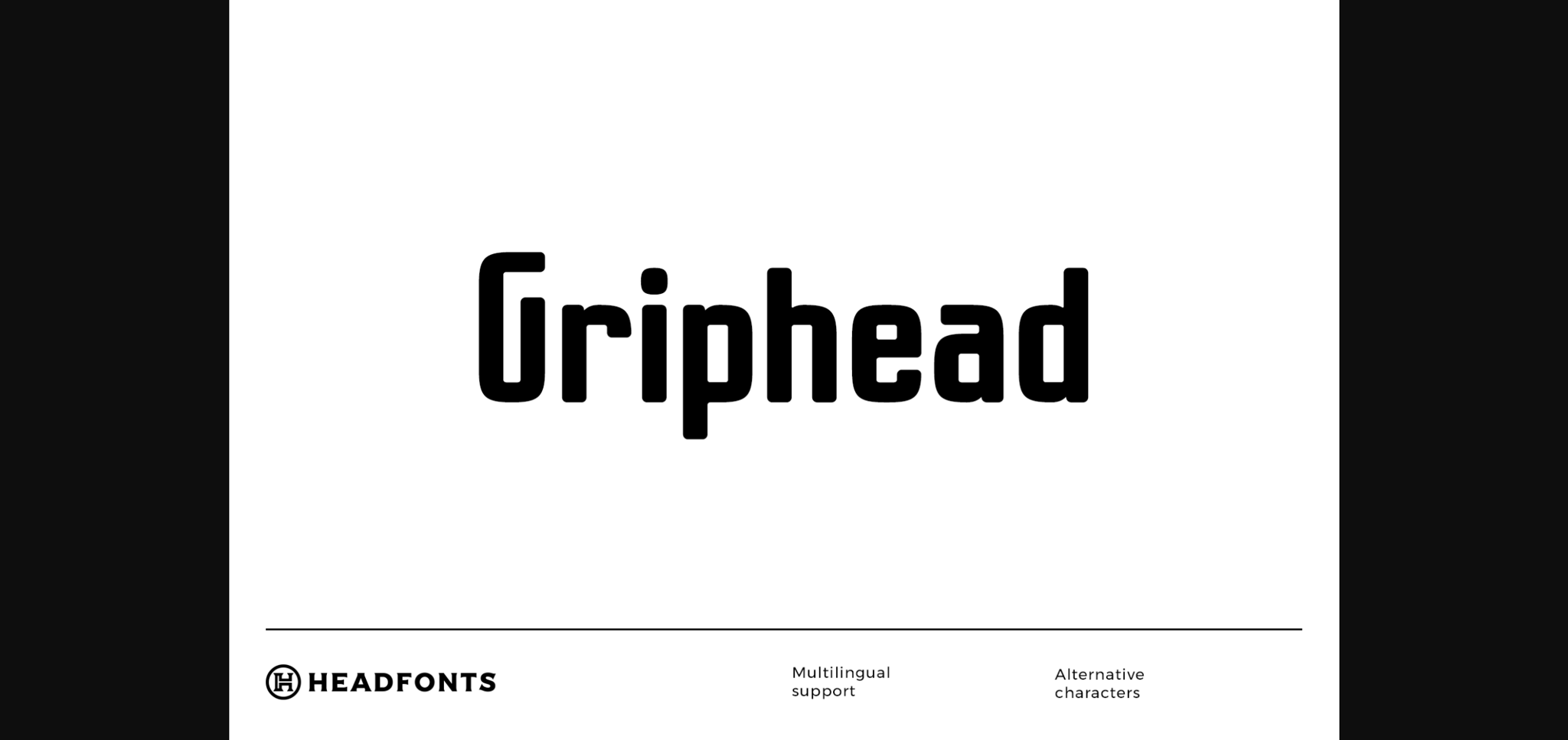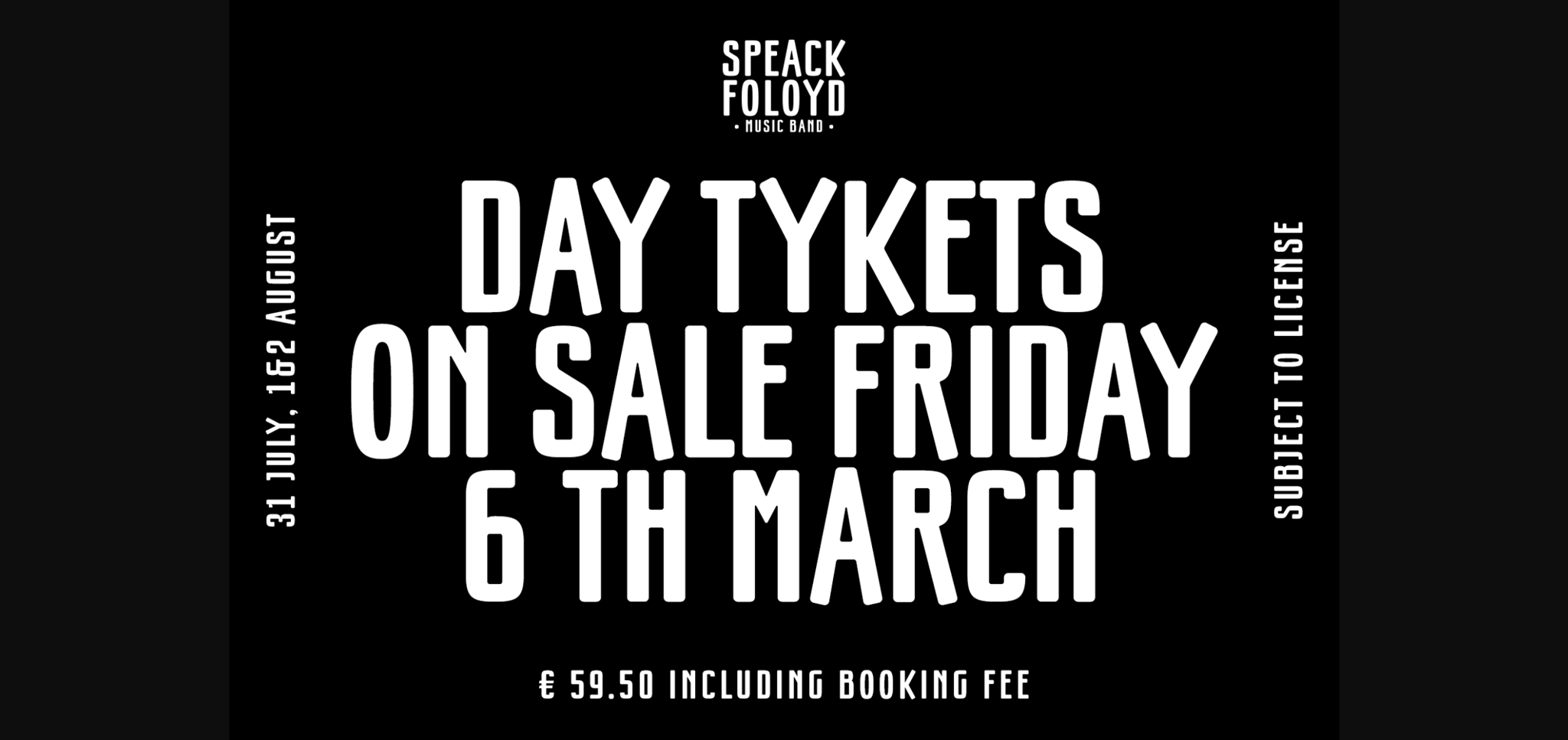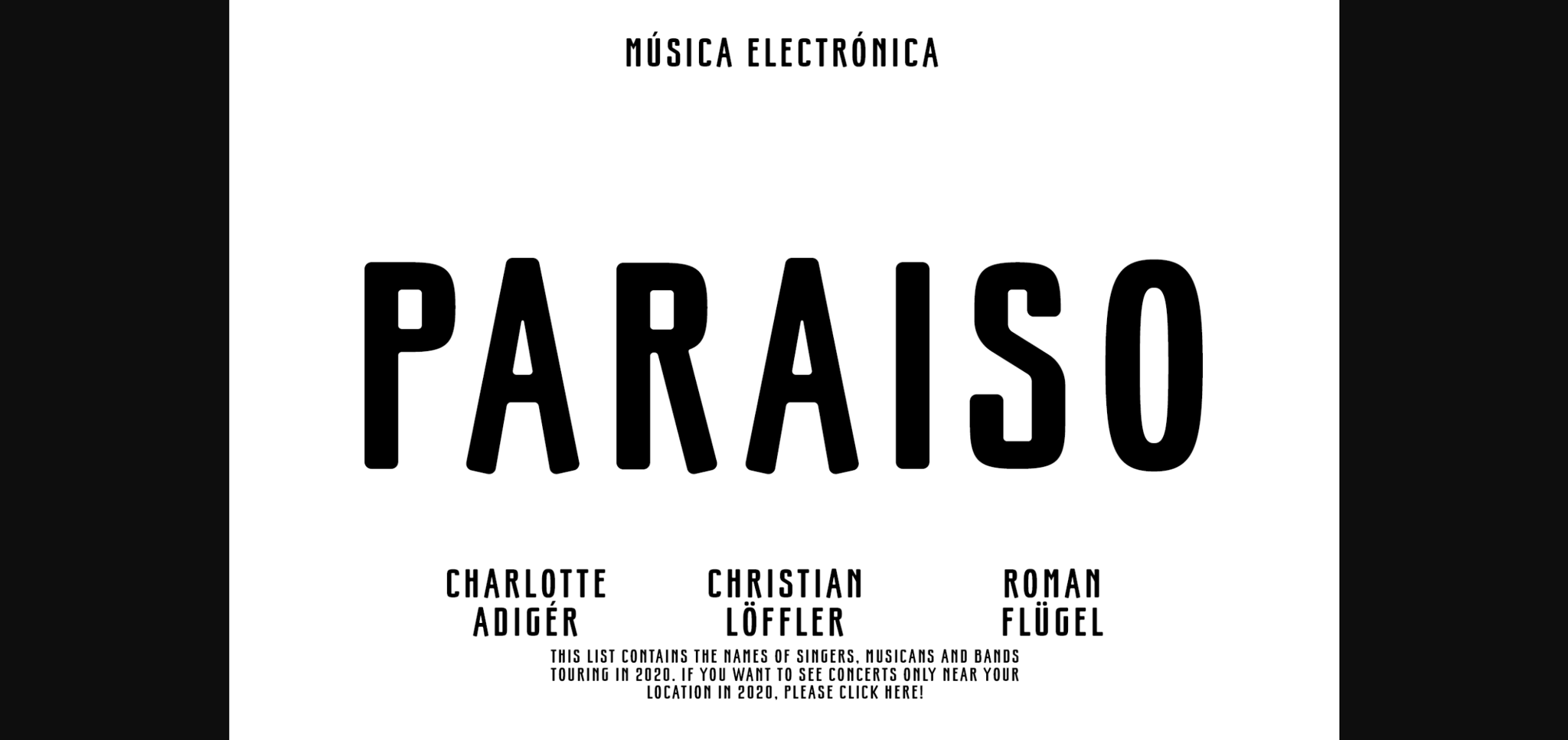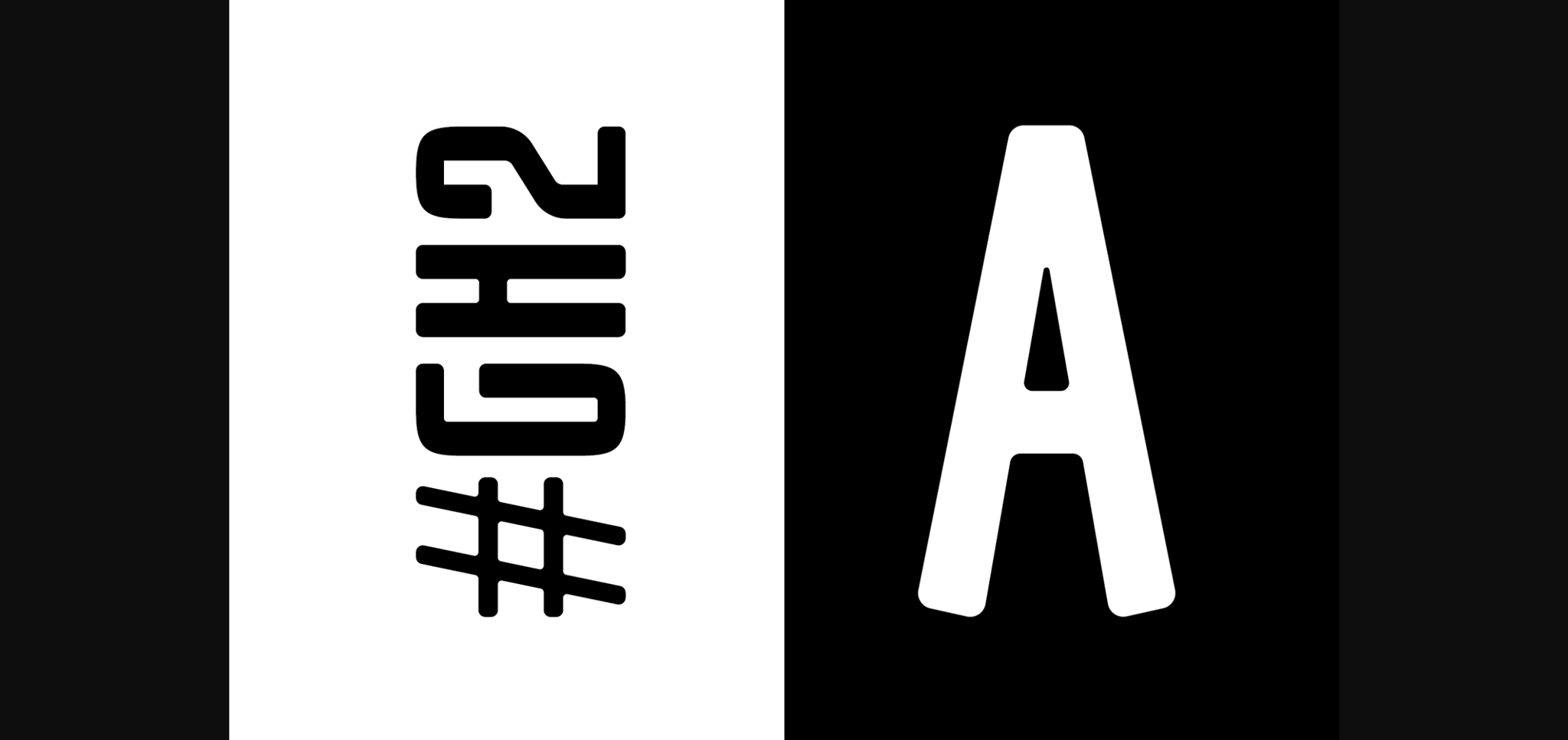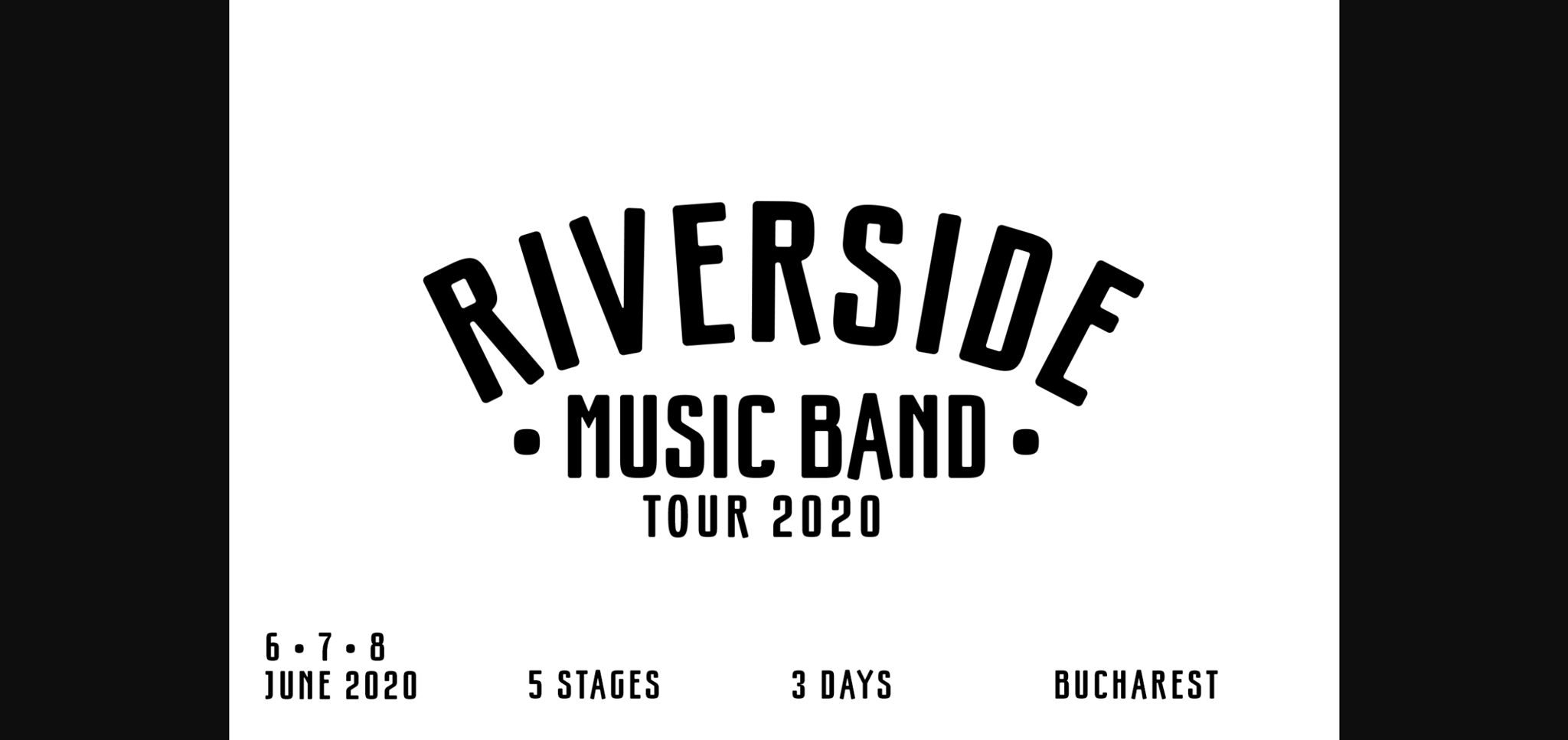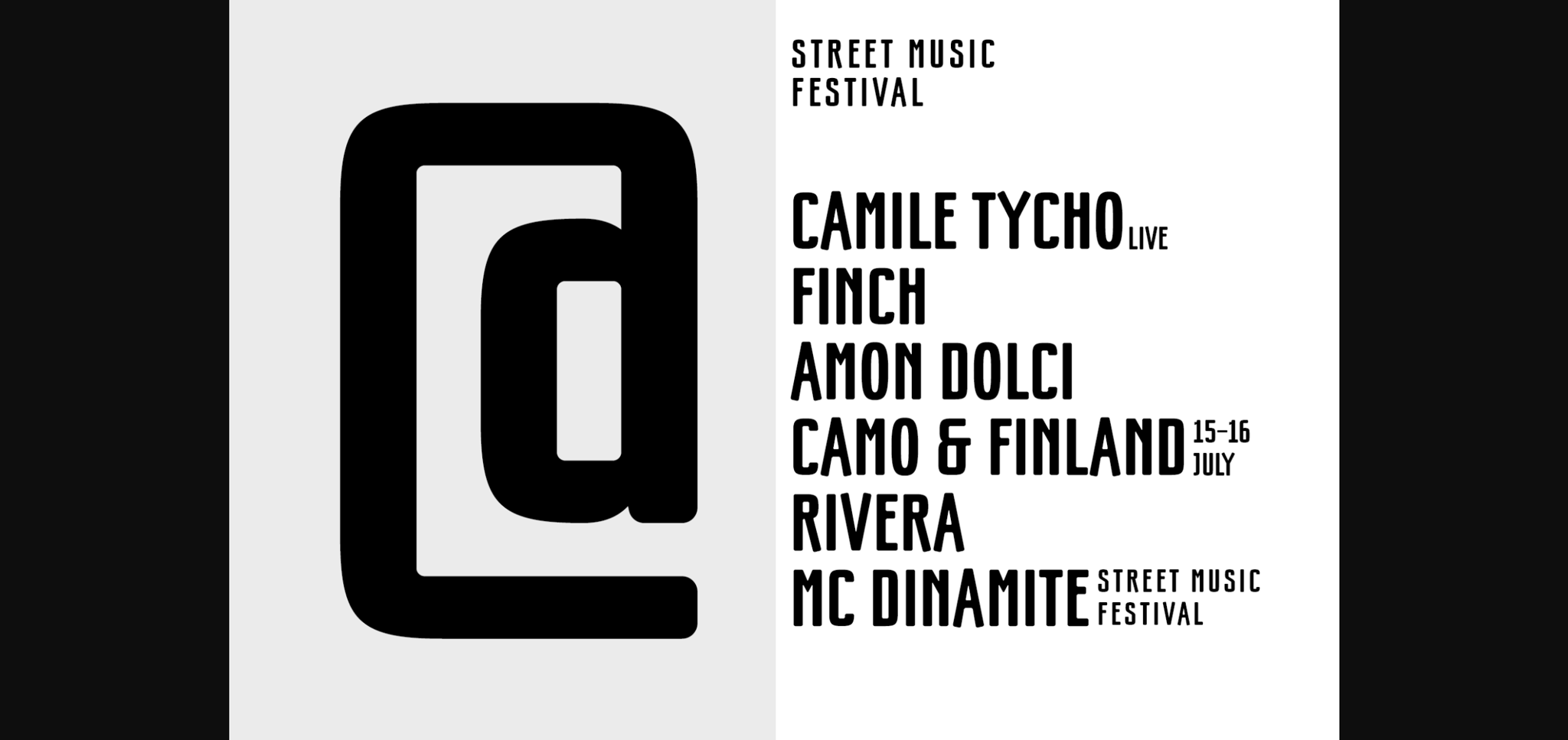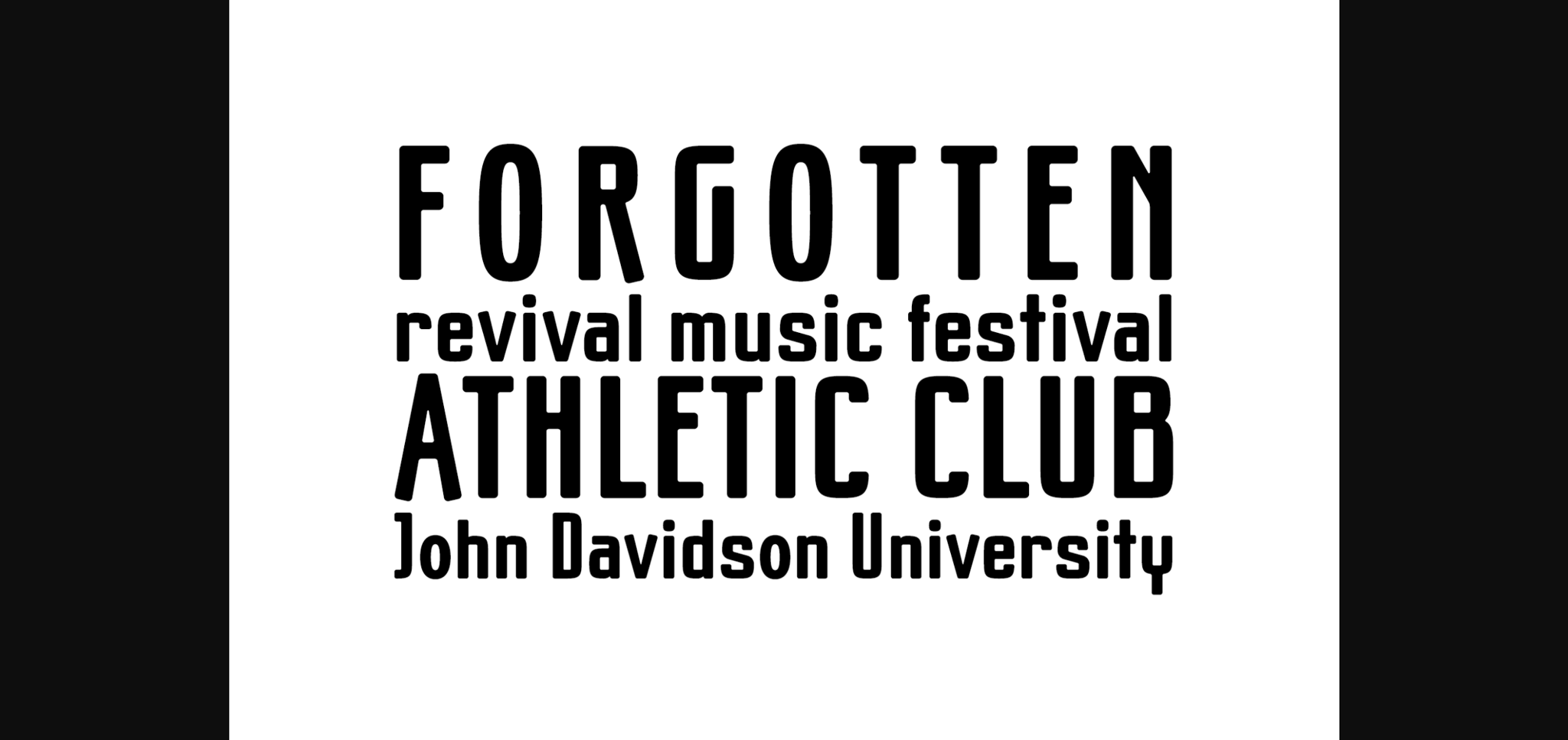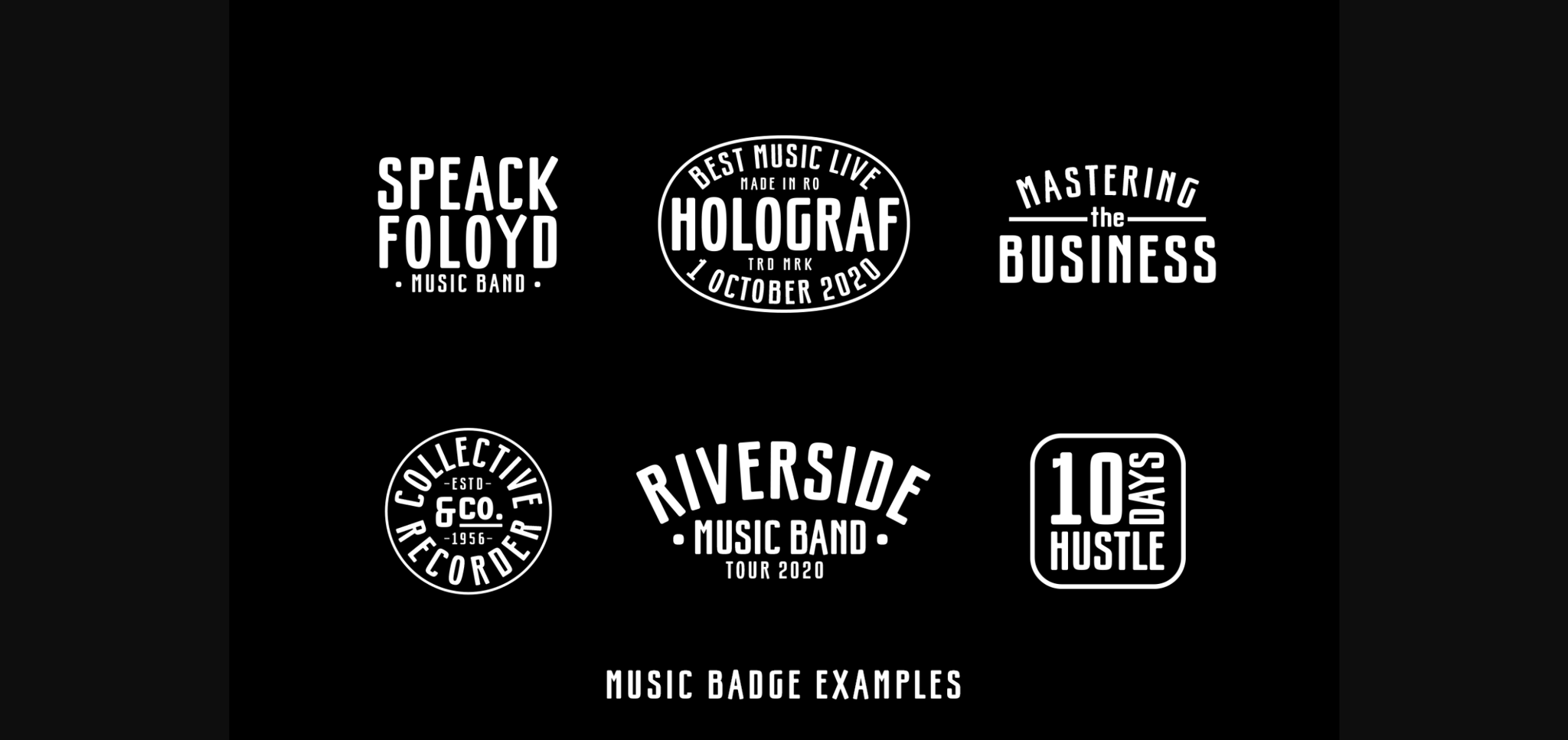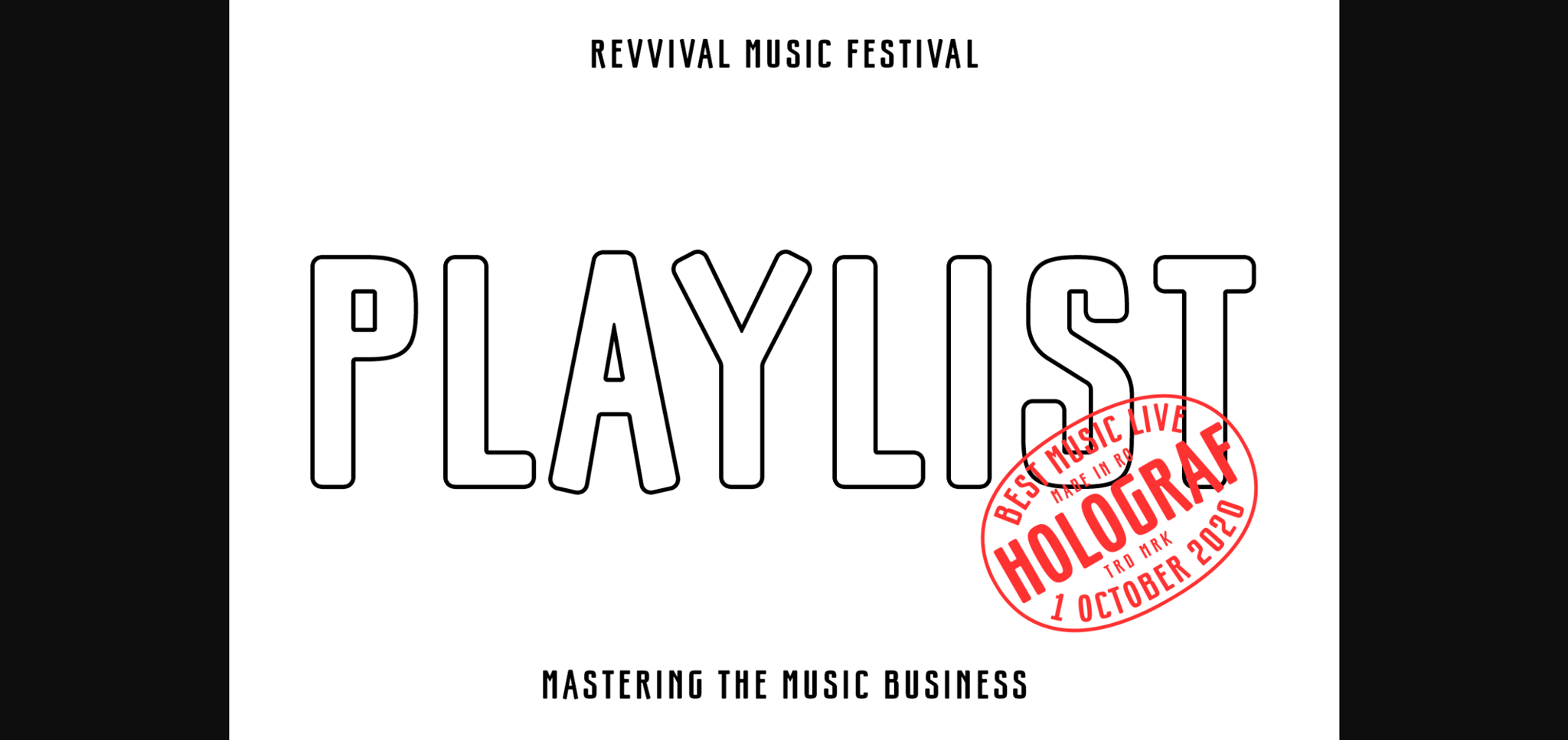
HomeSans Serif FontsGriphead Font Sans Serif Fonts Griphead Font FacebookXPinterestWhatsApp 1 of 11 ... Griphead Font Poster 2... Griphead Font Poster 3... Griphead Font Poster 4... Griphead Font Poster 5... Griphead Font Poster 6... Griphead Font Poster 7... Griphead Font Poster 8... Griphead Font Poster 9... Griphead Font Poster 10... Griphead Font Poster 11... About Griphead Font Griphead is a casual sans serif font. This font is the ideal font for adding an adventurous and authentic feel to your next design idea! DOWNLOAD NOW People also explored Hay Lelitta Font Little Smile Font Angelia Palladise Font Hey Magdison Font Peanut Font Delttras Font Dorrotthy Script Font Angsert Font 266 0 TagsGriphead Font Previous articleYemeyi FontNext articleTechead Font LEAVE A REPLY Cancel reply Comment: Please enter your comment! Name:* Please enter your name here Email:* You have entered an incorrect email address! Please enter your email address here Website: Save my name, email, and website in this browser for the next time I comment. Personal Use Free Maxwell Personal Use Free Read more about this font Sunflower Personal Use Free Read more about this font True Love Personal Use Free Read more about this font Ammanda Personal Use Free Read more about this font BLOG Free vs Paid Fonts: Why Investing in Premium Fonts Is Worth It Free vs Paid Fonts: Why Premium Fonts Are Worth It in 2025 The debate of free vs paid fonts continues in the design world. While... How to Install and Use Fonts on Windows, macOS, and Web Projects Using Fonts in Digital Marketing: Tips to Strengthen Your Brand Identity Top 10 Handwritten Fonts That Elevate Your Designs